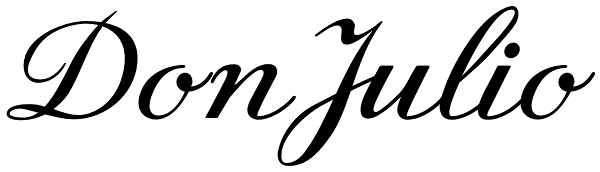
DonJulio
DonJulio is a handwritten most-of-the-time connecting script, that dates back to the 1930s in Germany. We tried to keep it as true to the original as possible, conserving the shaky and uneven appearance of those days. DonJulio can be mixed together...